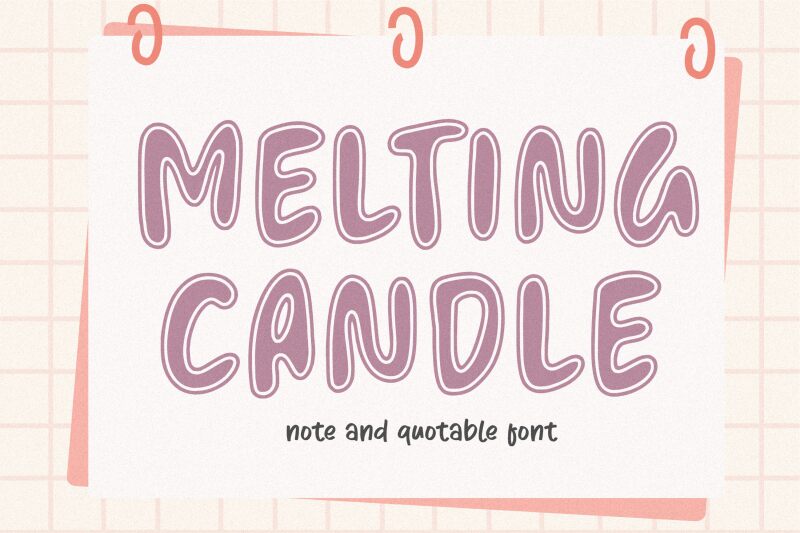
Melting Candle
Melting Candle font by Balpirick Studio is a fluid cartoon display typeface that melts the hearts of adults and children alike. Each character is formed with uneven elements; they’re wavy with fluid organic edges which contribute to an artistic piece whic has an intriguing whimsical appearance. The latter reflects its inner retro inspirations as it charms viewers instantly.
This free display font can be used in comic books, posters for concerts or Halloween parties, kids’ branding designs including product packages or logos, games that target a younger crowd, and shorts animations or movie intros. Add it to invitations or catchy headlines whenever you wish to impress your users.